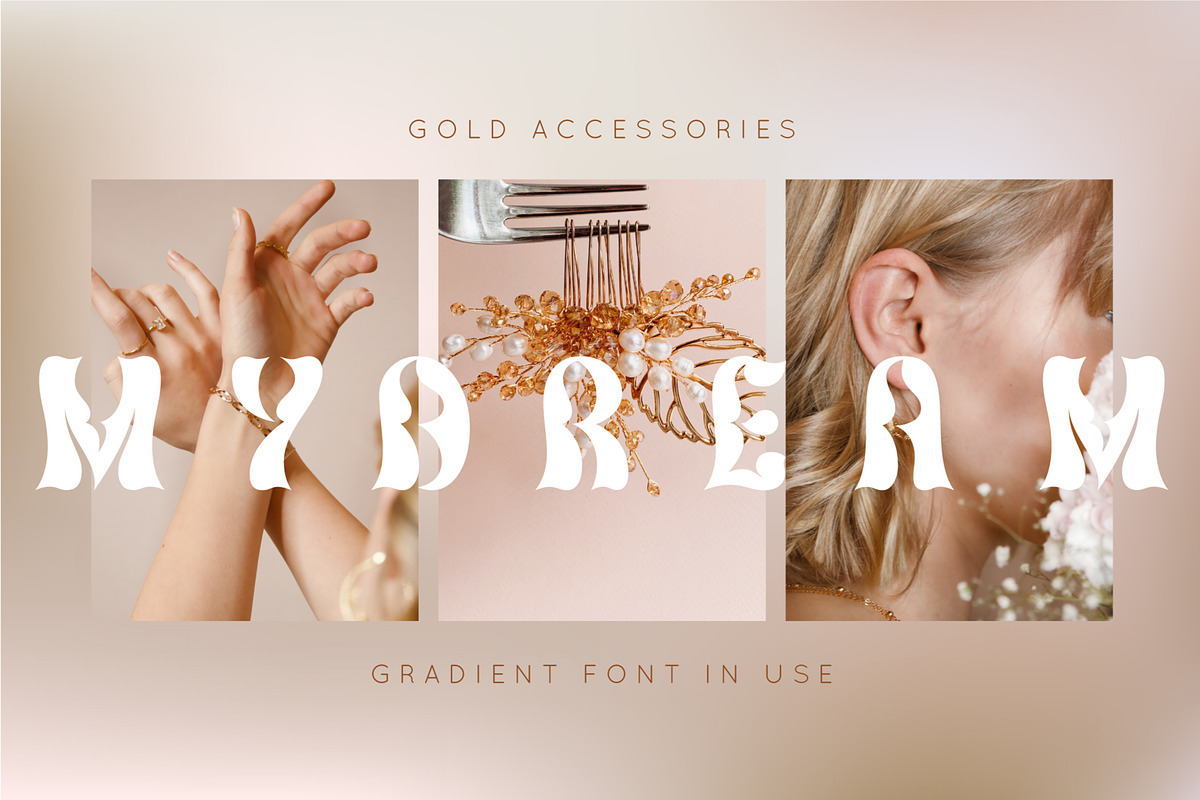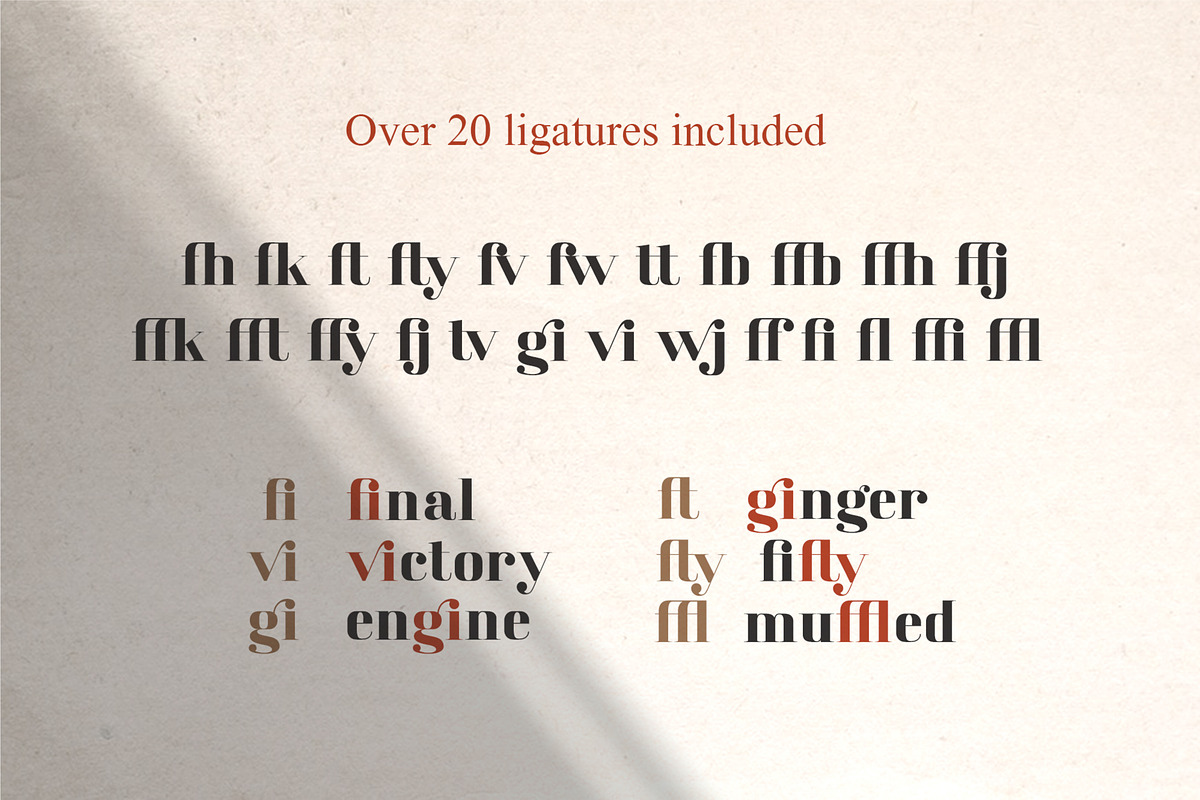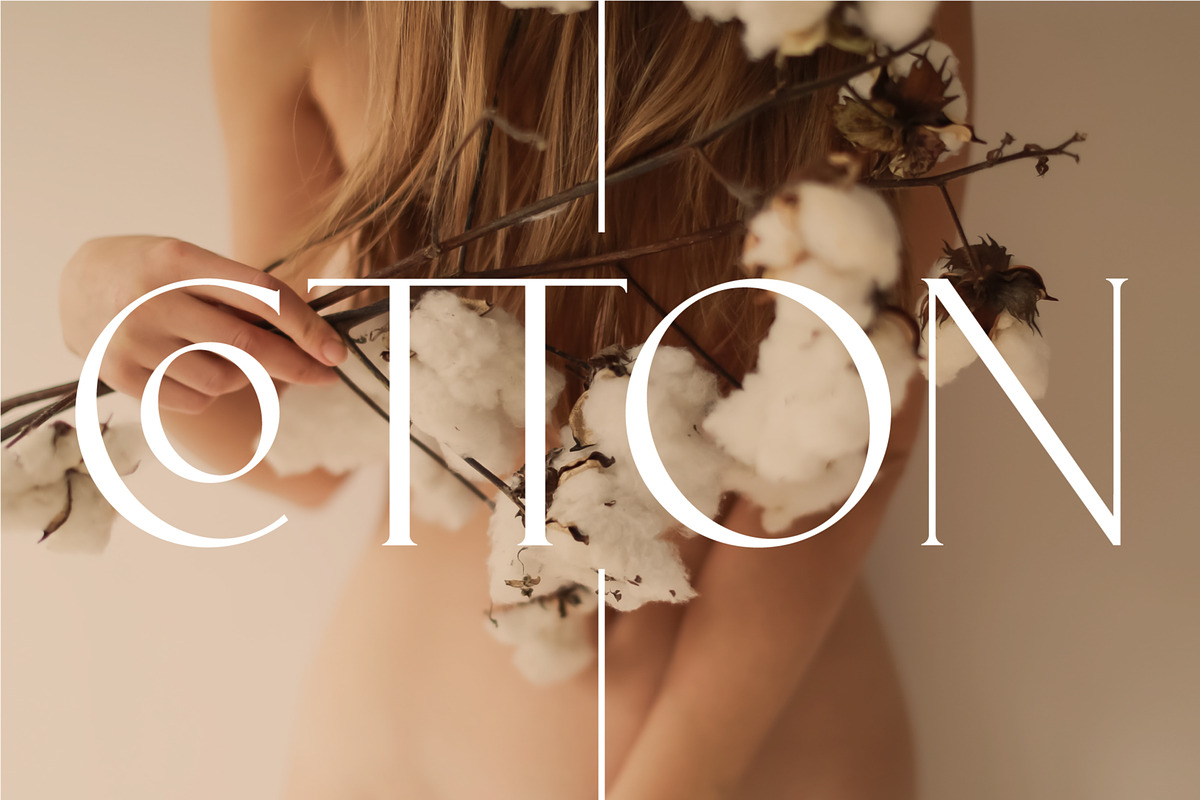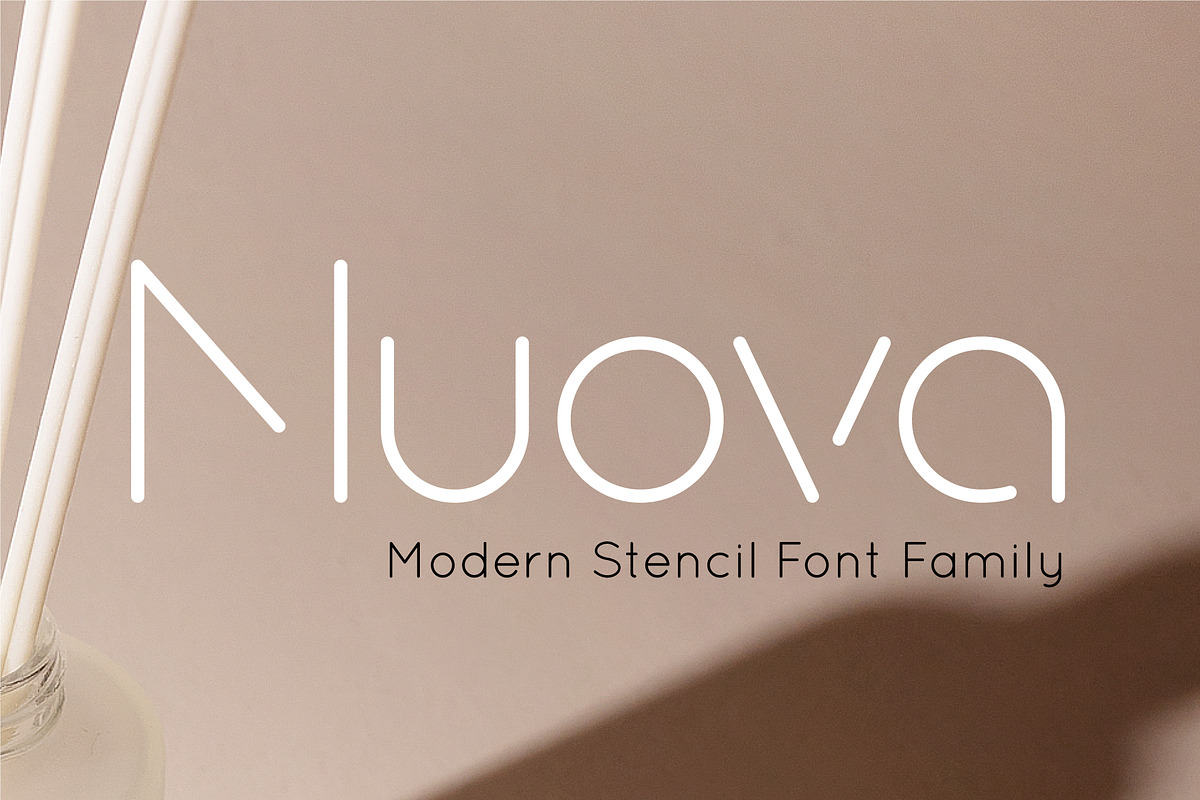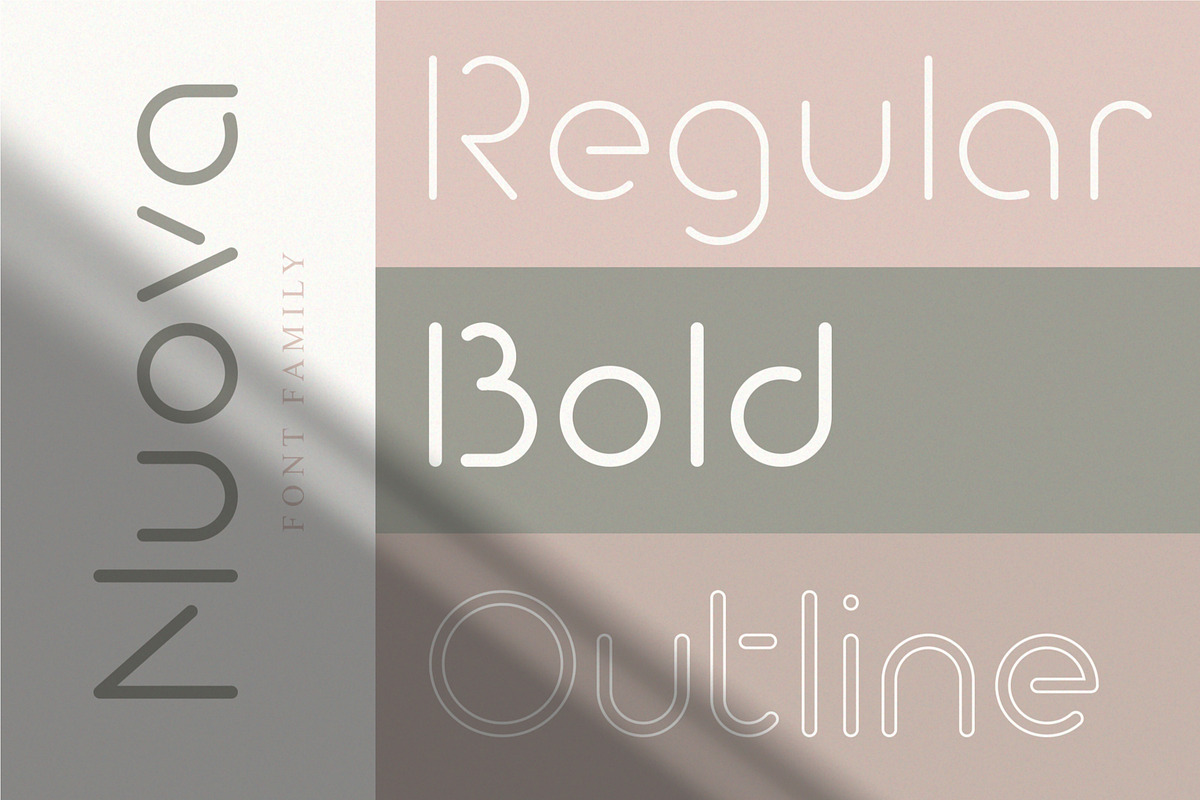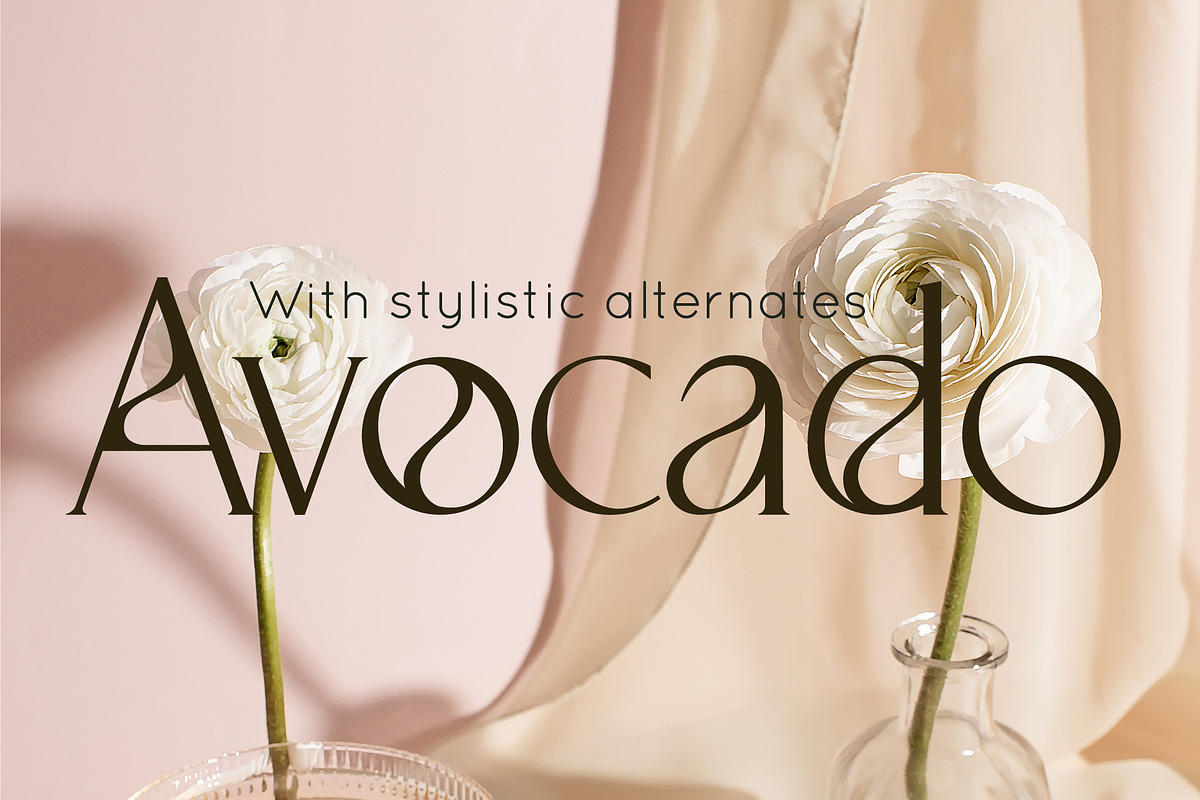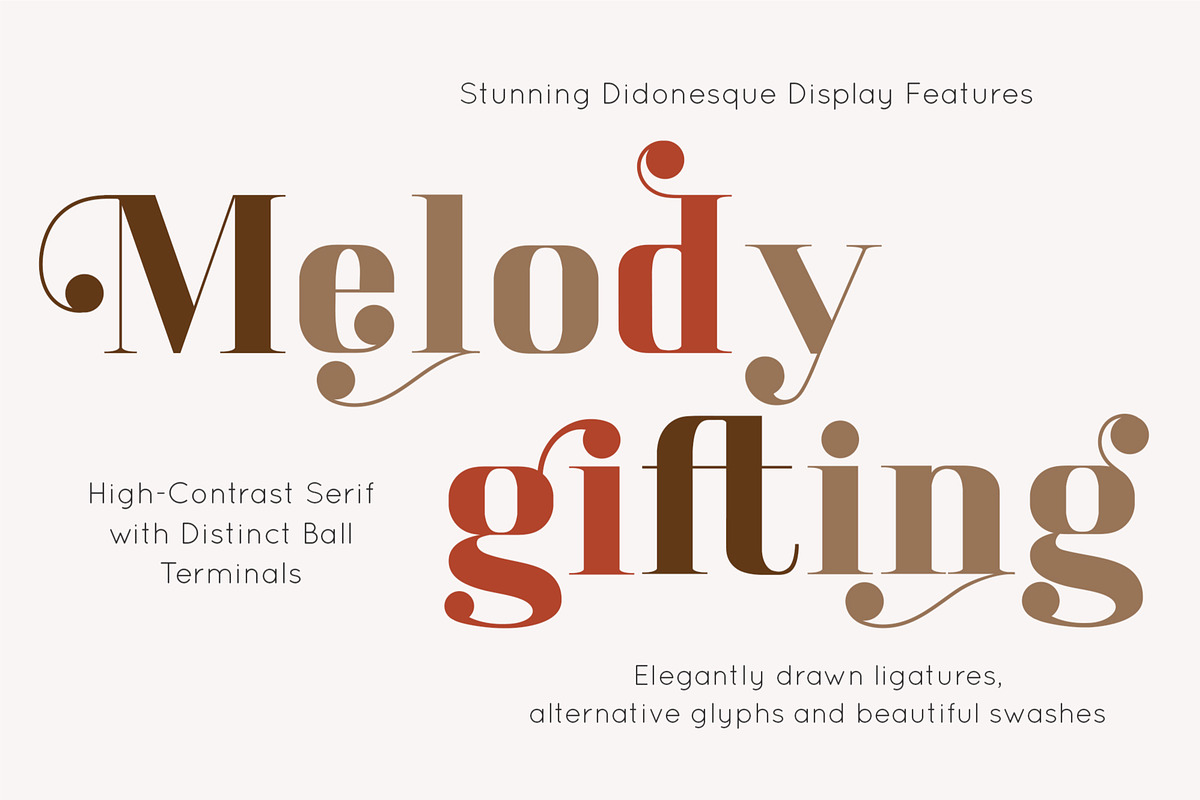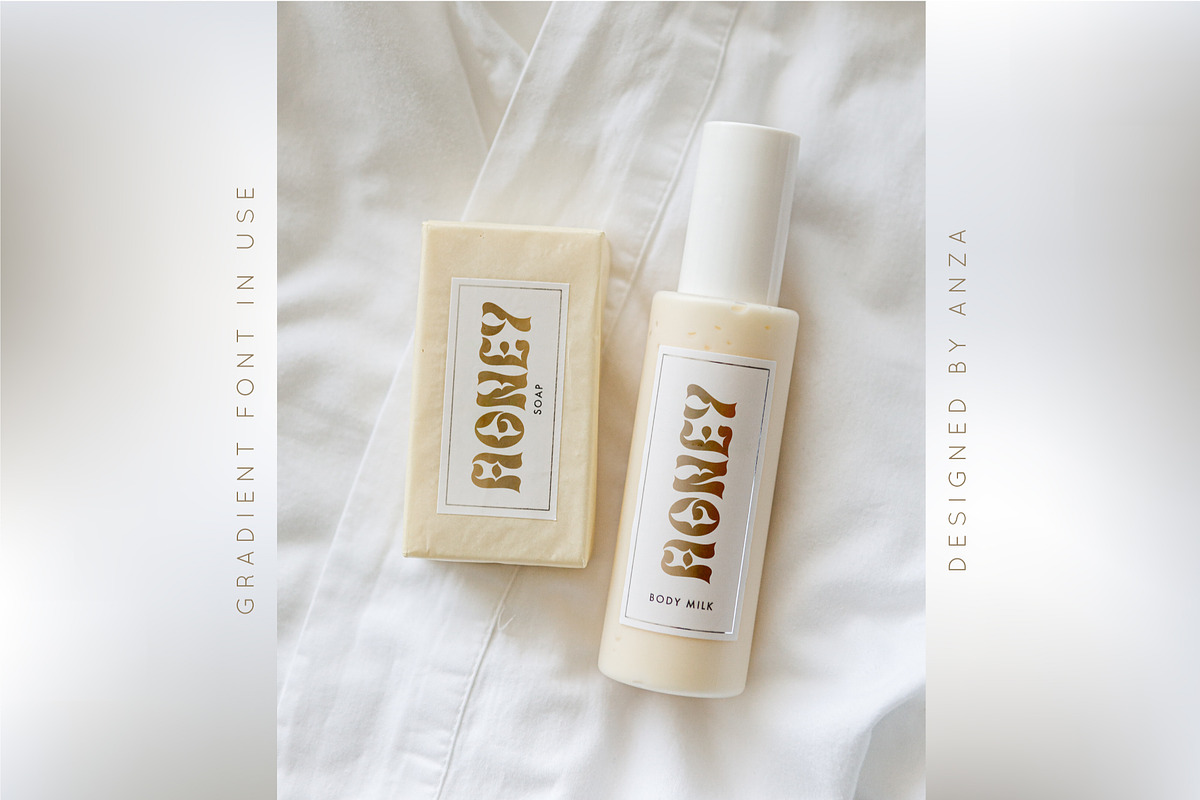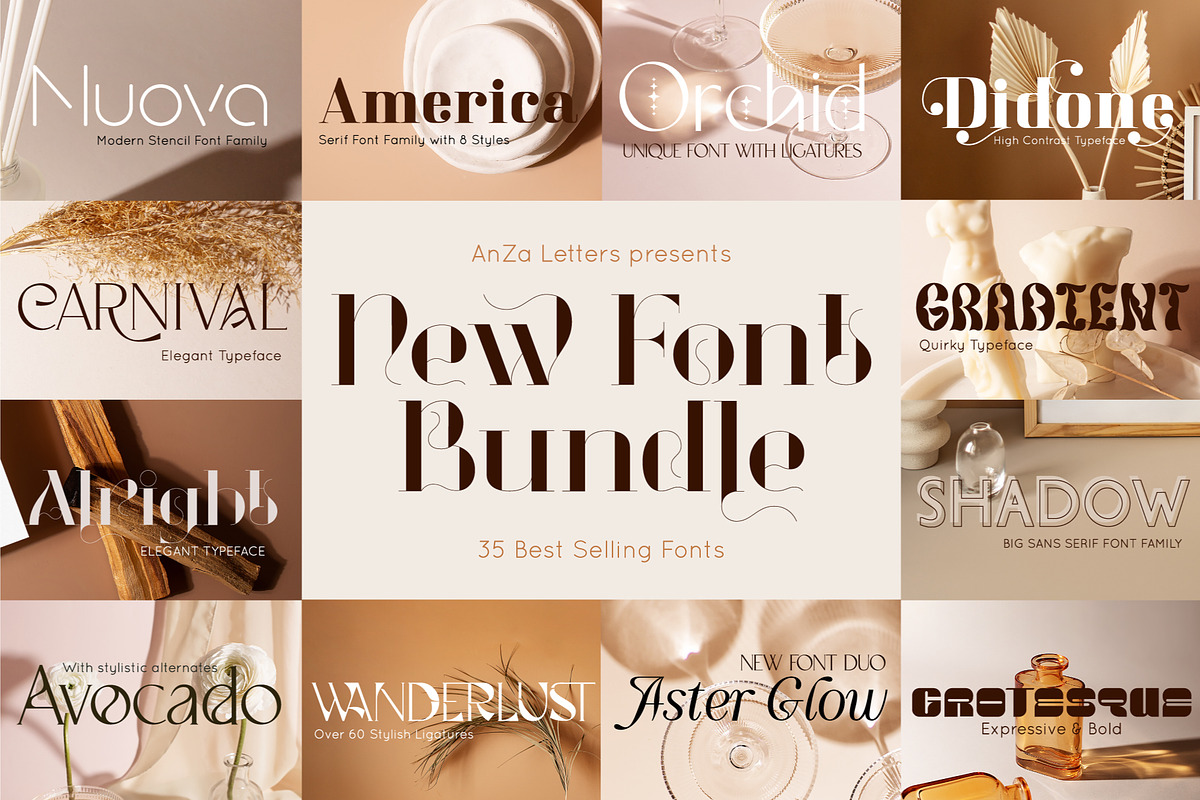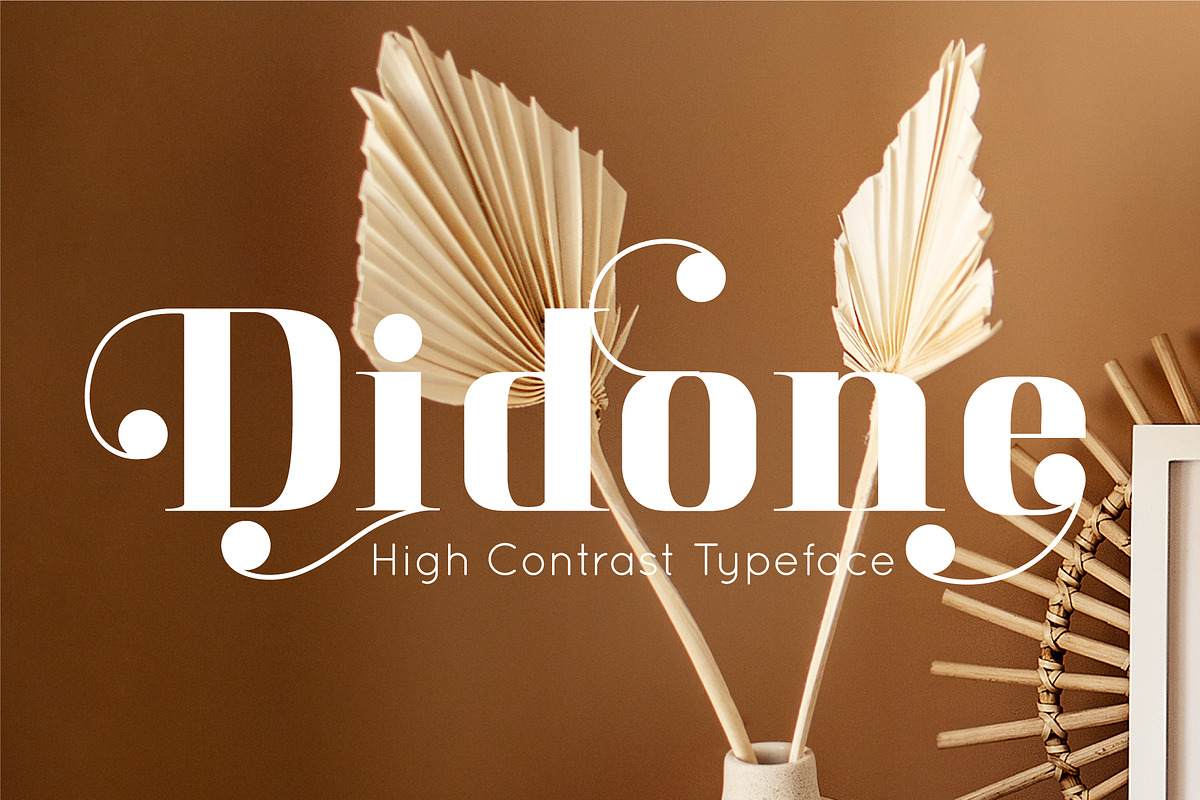
Hello! Don’t miss my new font bundle! Usual price is 168$ and now you can get only 28$! Wide range of 35 unique quality best selling standout modern fonts in 12 font families - retro and modern designed, with decorative swashes, elegant serif, lots of alternates and ligatures, expressive bold, high contrast fashion fonts and much more.
All these fonts are very suitable for greeting cards, signature logos, holiday invitations, wedding invites, stationery, logos, inspirational quotes, posters, blog headers, packaging, custom prints and more!